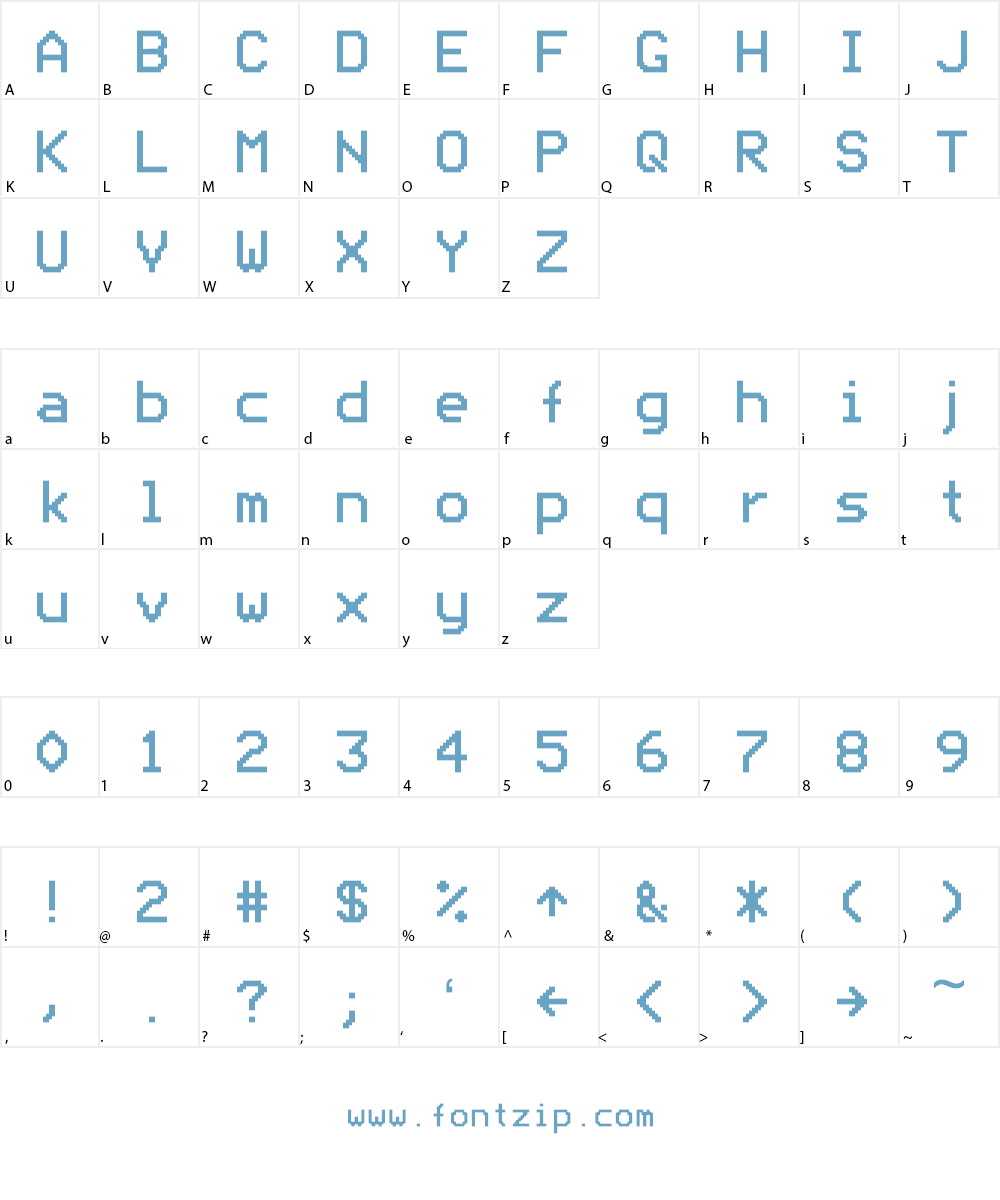
ModeSeven is based on the bitmap font in Teletext televisions,
1980s-vintage Videotext terminals (such as the Prestel system used in
the UK), and the BBC Micro computer. (The name derives from the BBC
Micro screen mode which used the teletext character generator.)
This font looks "natural" at a size of 20 pixels, or any multiple thereof.
However, it has been hinted as to scale as well as an ex-bitmap font
can be expected to.
This font was created by hand with Fontographer 4.1.2 on a Macintosh.
The character definitions were worked out from a bitmap version of the
Teletext font created by James Fidell, and included in xbeeb (a BBC
Micro emulator for UNIX/X11). The spacing of the original has been
preserved, which is why many character shapes are aligned to the right
of their cells.